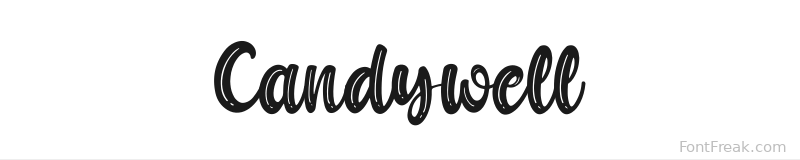
Candywell
Candywell, designed by Kong Font in 2020, is a captivating display font that embodies a charming handwritten style. This font is characterized by its playful, fluid strokes that evoke a sense of warmth and approachability. The stroke weight is consistent, with a moderate contrast that adds a subtle elegance to its overall appearance. The letters feature ample spacing, allowing for easy readability, while the whimsical curves and loops add decorative elements that enhance its unique personality.
This font is particularly well-suited for a variety of creative applications. It shines in wedding invitations, where its romantic flair can set the perfect tone for special occasions. Additionally, Candywell works beautifully on restaurant menus, offering a friendly aesthetic that invites diners to explore the culinary delights on offer. Movie posters also benefit from its engaging style, drawing in audiences with its eye-catching appeal. Furthermore, it can be effectively utilized in branding materials for small businesses, helping to create a memorable identity that resonates with customers.
Targeting graphic designers, small business owners, and content creators, Candywell provides an accessible yet distinctive typeface option for projects requiring a touch of personality. The font is available for free download, making it an attractive choice for budget-conscious creatives looking to elevate their design work without compromising quality.
What sets Candywell apart is its ability to blend a casual, handwritten charm with professional versatility, making it a go-to choice for various design needs. Its distinctive style not only captures attention but also conveys a sense of joy and creativity, ensuring that any project featuring this font stands out in a crowded marketplace.